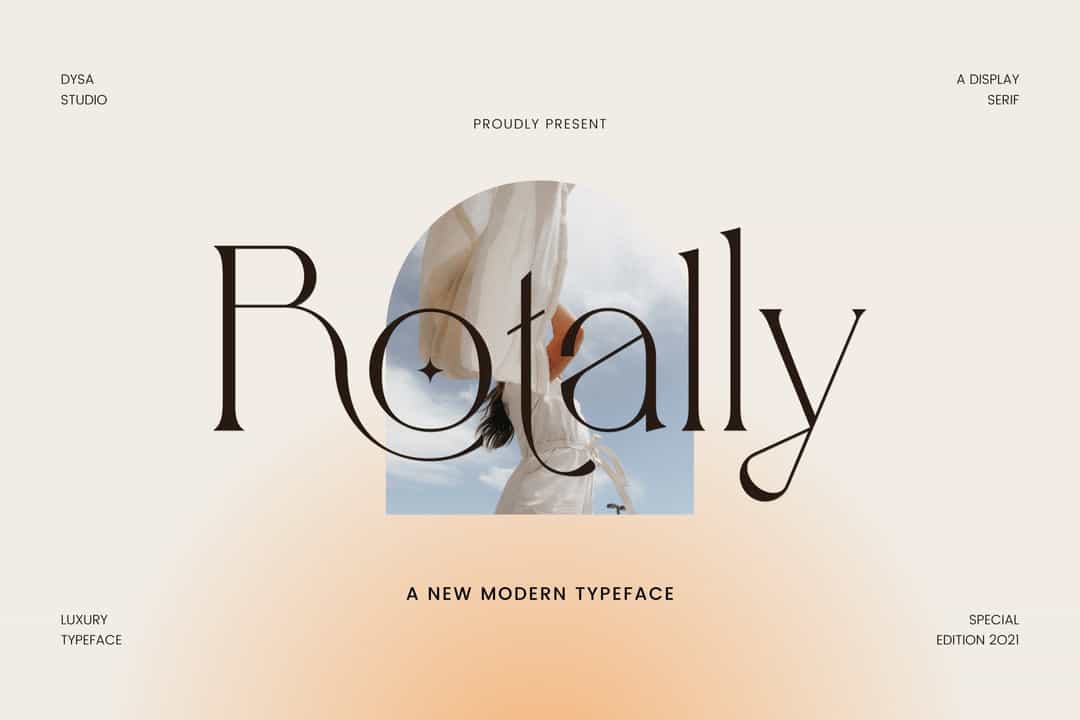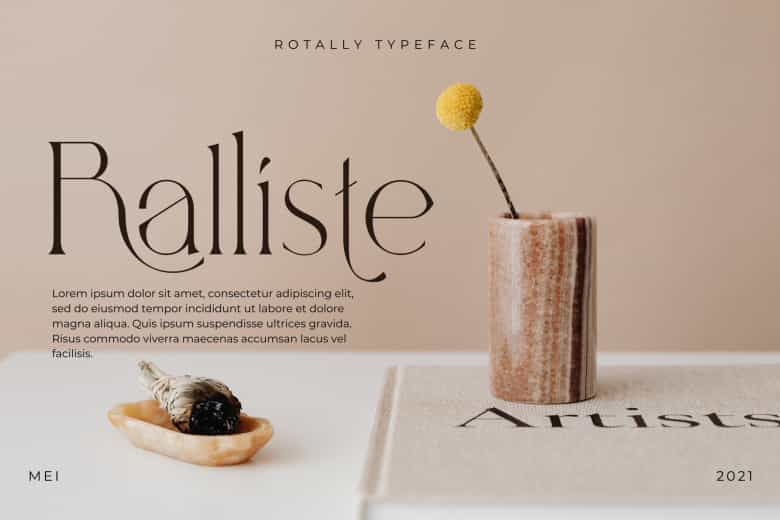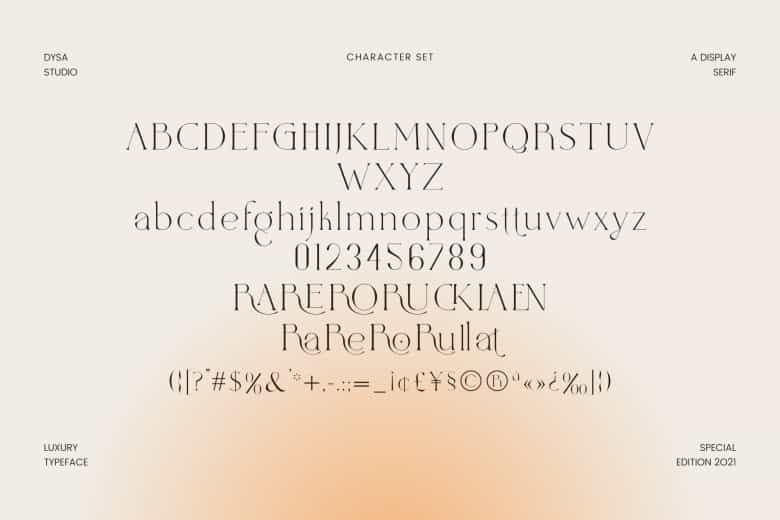
Rotally Font is an exciting modern serif font designed with smooth edges for handcrafted aesthetics, ideal for branding projects and minimalism. Rotally is also suitable for creating minimalist style designs.